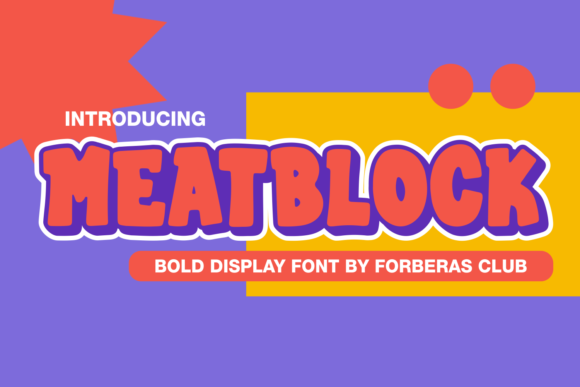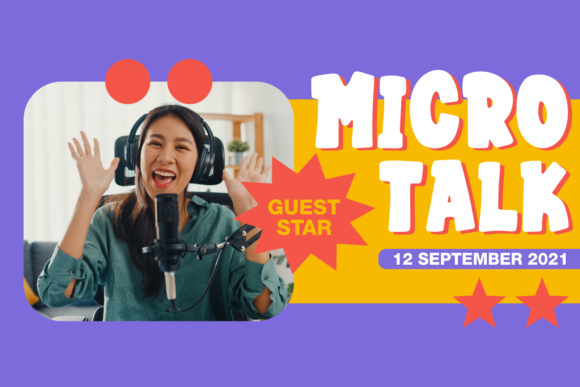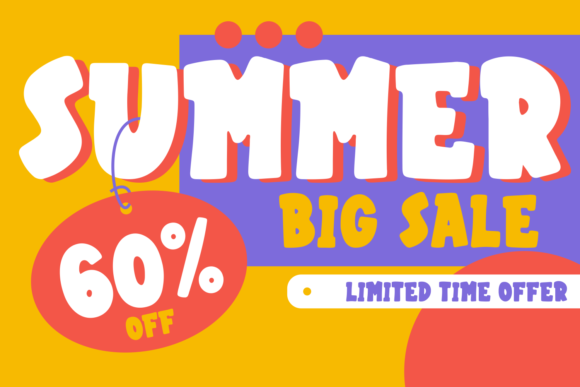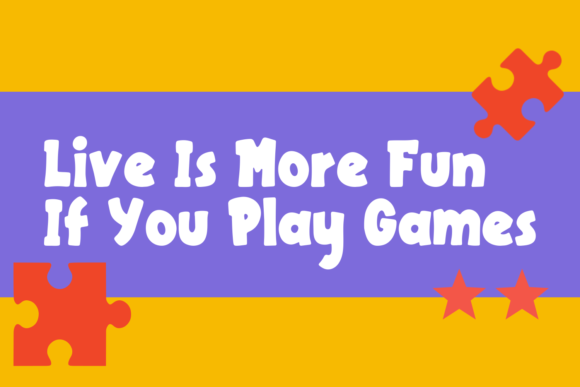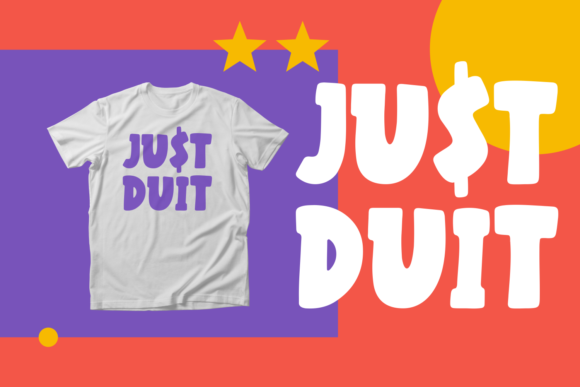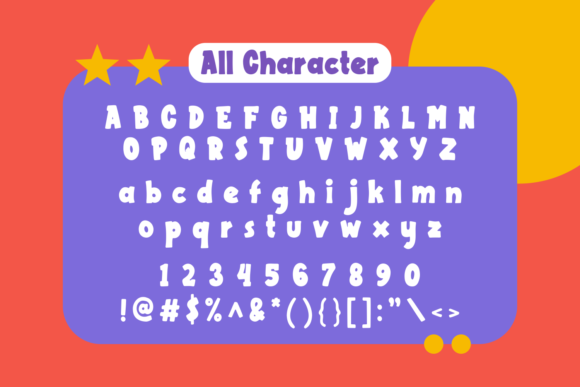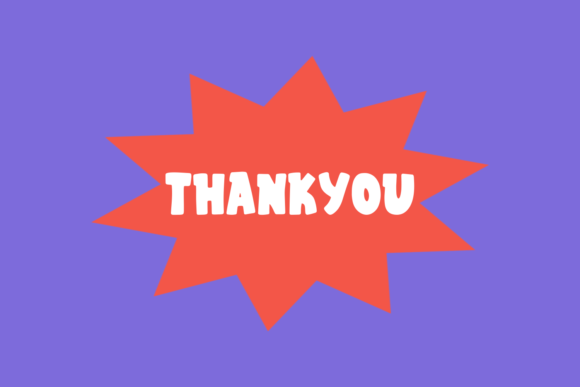
Meatblock
Meatblock: A Modern and Bold Slab Serif Font
Meatblock is a distinctive slab serif font that combines modern design with thick, bold letterforms. This versatile typeface is perfectly suitable for bold and creative projects, offering designers a powerful tool for creating impactful typography across a wide range of applications.
Key Features of Meatblock
• Modern Design: Features contemporary styling that aligns with current design trends.
• Thick Letterforms: Incorporates substantial characters for maximum visual impact.
• Slab Serif Structure: Maintains the characteristic thick, rectangular serifs typical of slab serif fonts.
• Bold Aesthetic: Offers a strong and assertive look that commands attention.
• Versatile Application: Suitable for a wide range of creative projects.
Ideal Uses for Meatblock
Meatblock’s unique characteristics make it particularly well-suited for:
• Branding projects that require a strong visual presence
• Magazine layouts and headlines
• Social media graphics and digital content
• Game covers and promotional materials
• Expressing words above backgrounds in various design contexts
When incorporating Meatblock into your designs, consider the following tips:
• Use for headlines or short blocks of text to maximize its bold impact
• Experiment with different sizes to create hierarchy while maintaining readability
• Consider pairing with simpler, lighter weight fonts for body text to create contrast
• Take advantage of its thickness for logo designs and branding elements
Meatblock is an excellent choice for designers looking to add a modern and bold slab serif font to their typographic toolkit. Its thick letterforms and contemporary style make it stand out in the world of typography. Whether you’re working on branding projects, creating layouts for magazines, or developing eye-catching social media content, Meatblock offers the perfect blend of modernity and boldness.
Add Meatblock to your creative projects and explore how it can elevate your designs with its strong and assertive style. From impactful headlines to striking game covers, this font provides the tools to create memorable typography that resonates with audiences seeking bold and creative visual expressions. It’s versatile enough to be used in various contexts, from vintage-inspired designs to cute and friendly layouts.
Whether you’re creating a magical and mysterious atmosphere or aiming for a more thoughtful and introspective mood, Meatblock can adapt to your needs. Its flexibility allows it to work well in both rustic, vintage-style projects and holiday-themed designs. For those looking to add a touch of nostalgia to their work, this font can even complement vintage Christmas-inspired creations.